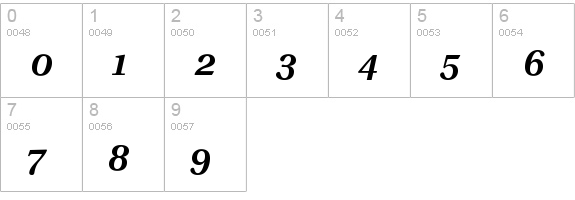
Utopia Semibold Italic with Oldstyle Figures Font Details
Utopia Semibold Italic with Oldstyle Figures is a sub-bold, structured, italic variant in the Utopia typeface family \xE2\x80\x94 well suited to sub-headlines and emphasised passages.
Utopia Semibold Italic with Oldstyle Figures font is a stunning and versatile typeface that embodies elegance and sophistication. Its sleek and slanted letterforms exude a sense of modernity, while the oldstyle figures add a touch of classic charm. The Utopia Semibold Italic with Oldstyle Figures font is perfect for conveying a sense of luxury and refinement in a wide range of design applications. Whether you're designing a logo, creating a magazine layout, or crafting an invitation, this font will elevate your project to new heights. With its bold and italicized characters, Utopia Semibold Italic with Oldstyle Figures font commands attention and makes a bold statement. Each letter is meticulously crafted to ensure legibility and readability, even at smaller sizes. One of the best features of this font is that it is freely available to download at FontsMarket.com. This means that you can enhance your designs with this exceptional typeface without breaking the bank. Whether you're a professional designer or a casual hobbyist, having access to high-quality fonts like Utopia Semibold Italic with Oldstyle Figures font can make a world of difference. So why wait? Unlock the potential of your designs with Utopia Semibold Italic with Oldstyle Figures font. Download it for free at FontsMarket.com and infuse your projects with a touch of elegance and sophistication.